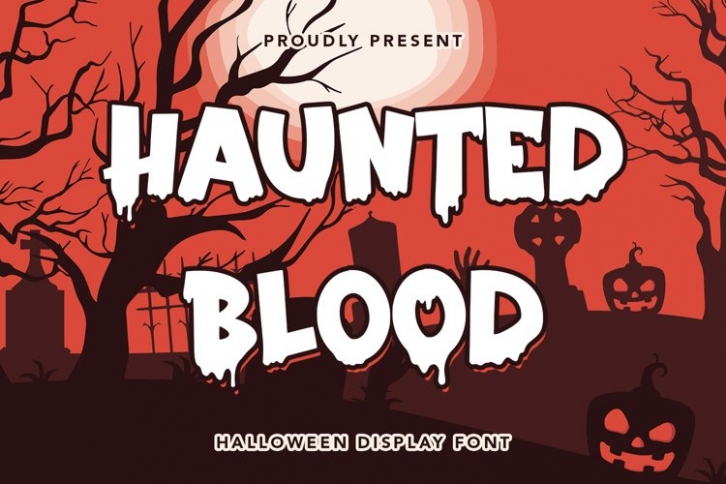
Haunted Blood is a trendy and unique font with an authentic style. It was designed by plusstore and it's a great choice for creative people who need such a font. It was released on October 22, 2021 and the file size is 5.71 MB. Haunted Blood will add an organic vibe to any design idea!